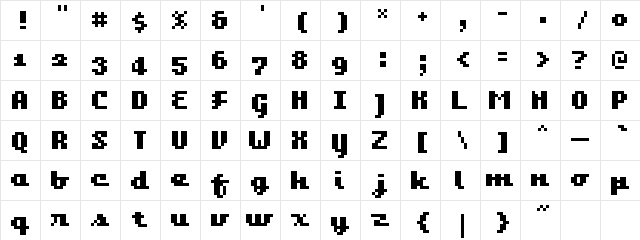
Bangalore Regular
Design Context for Bangalore Typeface
Bangalore is a composed and adaptable typeface that performs quietly and consistently across a wide range of design contexts.